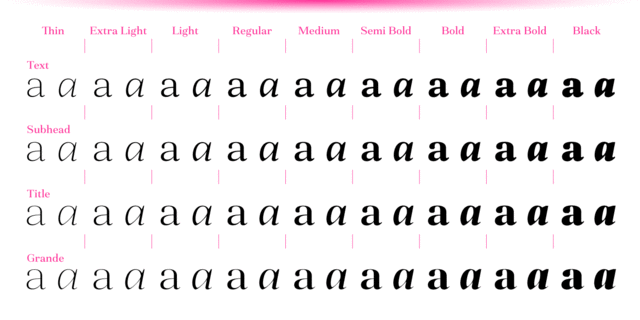
Fiorina Text (18 fonts)
A text subfamily with moderate contrast. Fiorina is a modern Didone-style serif typeface of 72 fonts. It comes in 4 optical sizes, ranging from Text with moderate contrast to super-contrasted Grande. Each of the 4 sets comes in 9 weights with corresponding sophisticated italics. The overall variety of styles makes Fiorina the ultimate magazine typeface. The glyph set supports all European Latin-based languages, as well as all major languages that use Cyrillic script. The type family also suppors numerous OpenType features, including 6 sets of digits, small caps, fractions, superscript and subscripts, ordinals, and more. The typeface was designed by Andriy Konstantynov and released in Mint Type foundry in 2020.